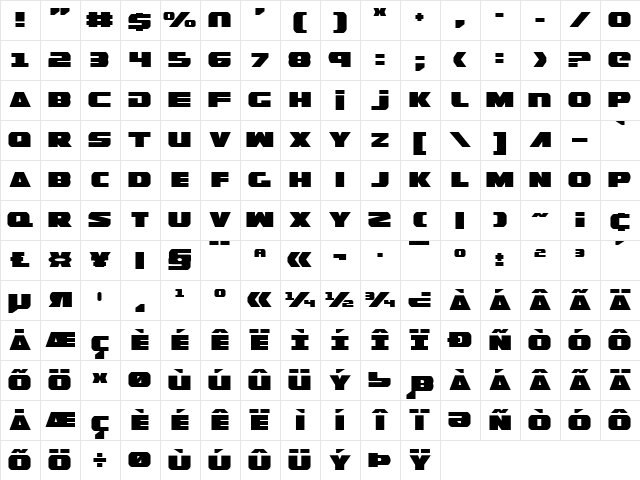
Guardian Expanded Expanded
| Designer | Dan Zadorozny |
Design Context for Guardian Expanded Typeface
Guardian Expanded offers clean, dependable letterforms without strong stylistic allegiance, making it a practical choice for designers who need flexibility.
Pro Tip: Pair Guardian Expanded with a font of contrasting weight or personality to build a more expressive typographic hierarchy.